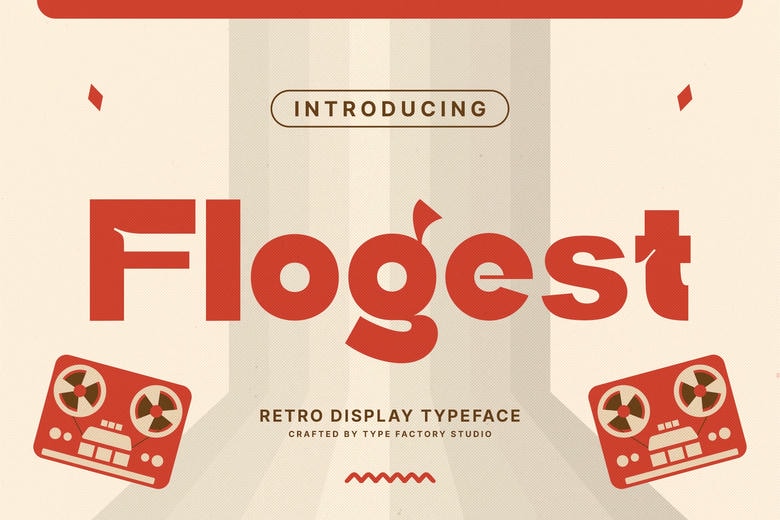
Flogest Font
Flogest is a retro typeface based on the old-school music posters, record jackets, and old-fashioned storefront signage. It is characterized by the exaggerated letterforms, curving outlines and the unique mid-century elements which produce a powerful visual effect at large scale.
Flogest is created specifically to be used as a headline and as a brief statement; it can be used in posters, album covers, and event promotions, as well as in branding, packaging, and editorial layouts, where a nostalgic and expressive tone is required. The letterforms are geometric in form with slight decorative cuts, which makes it have a familiar retro nature without compromising readability.
The typeface has upper cases, lower cases, numbers, punctuations, multi-lingual feature and also some ligatures to improve variation in style.